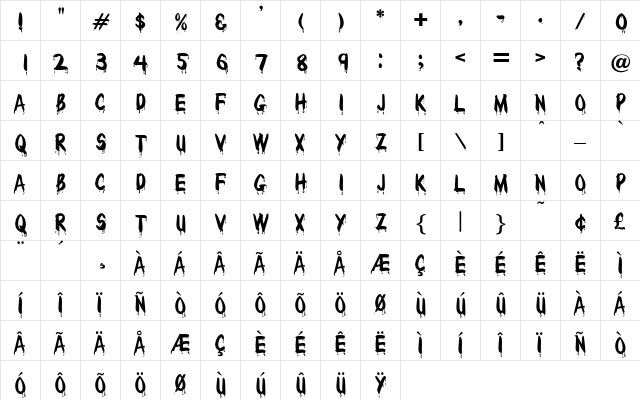
OPTIDracula Medium Font Preview
OPTIDracula Medium
Design Context for OPTIDracula Typeface
OPTIDracula is a composed and adaptable typeface that performs quietly and consistently across a wide range of design contexts.